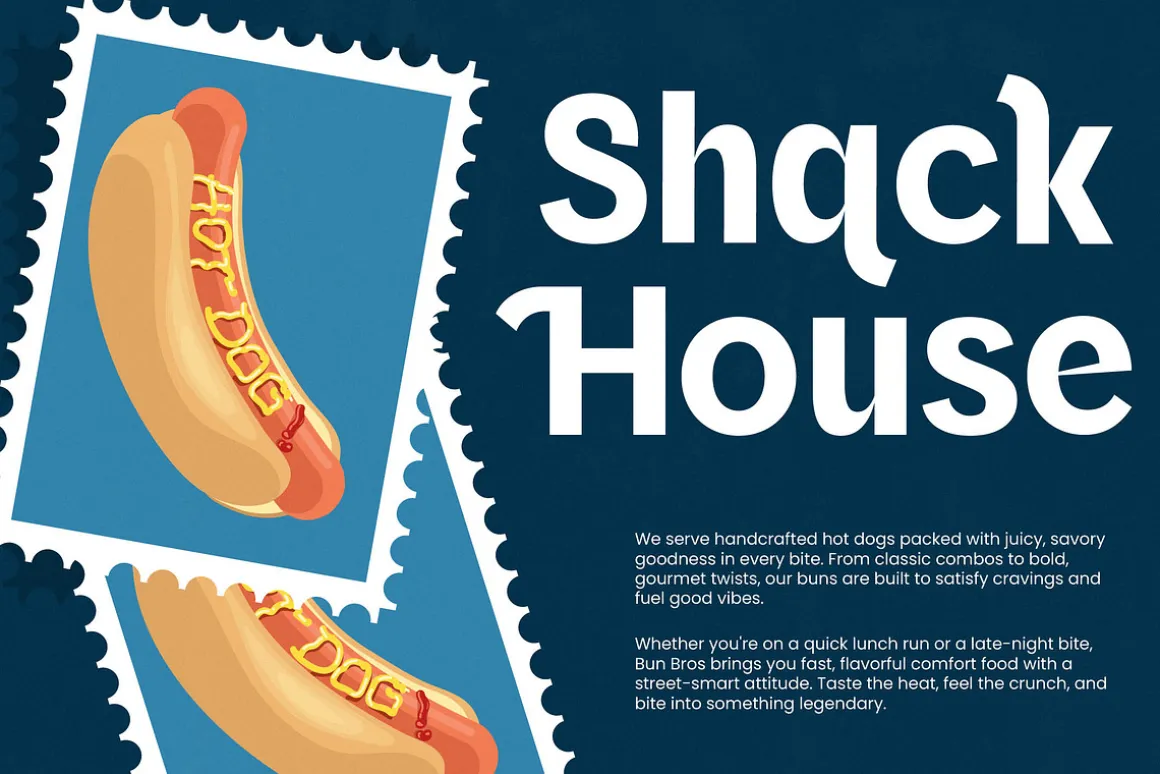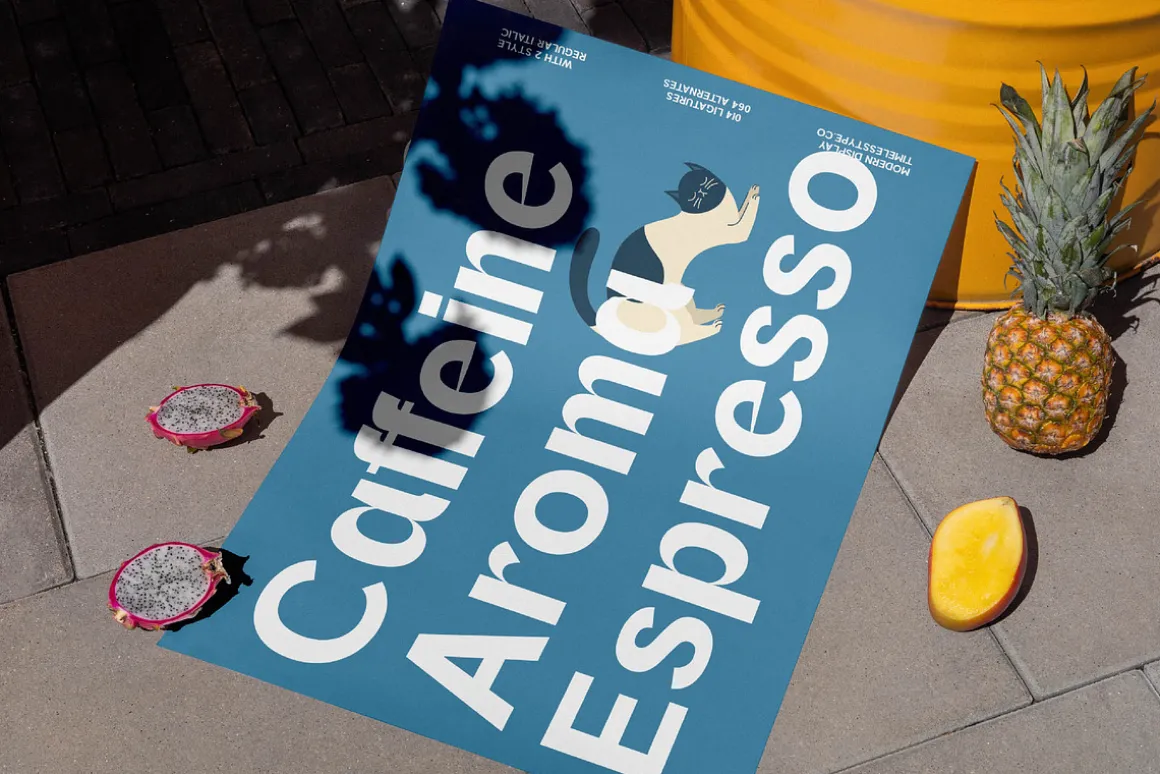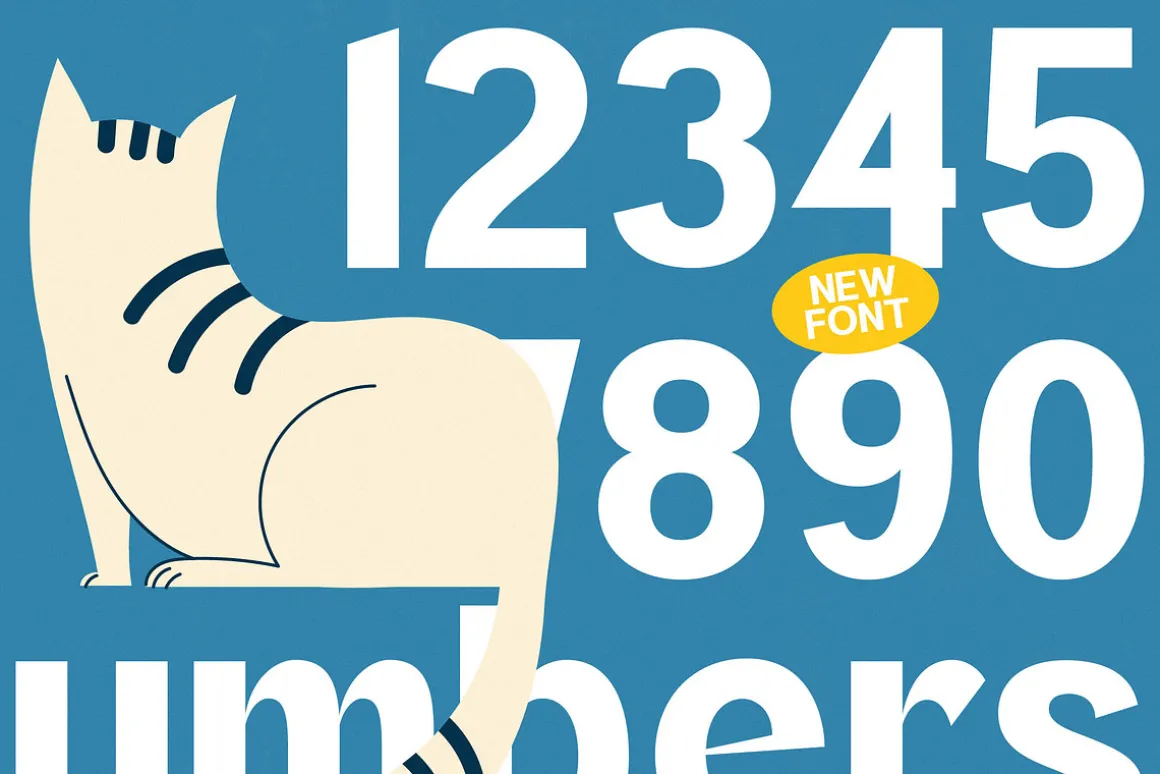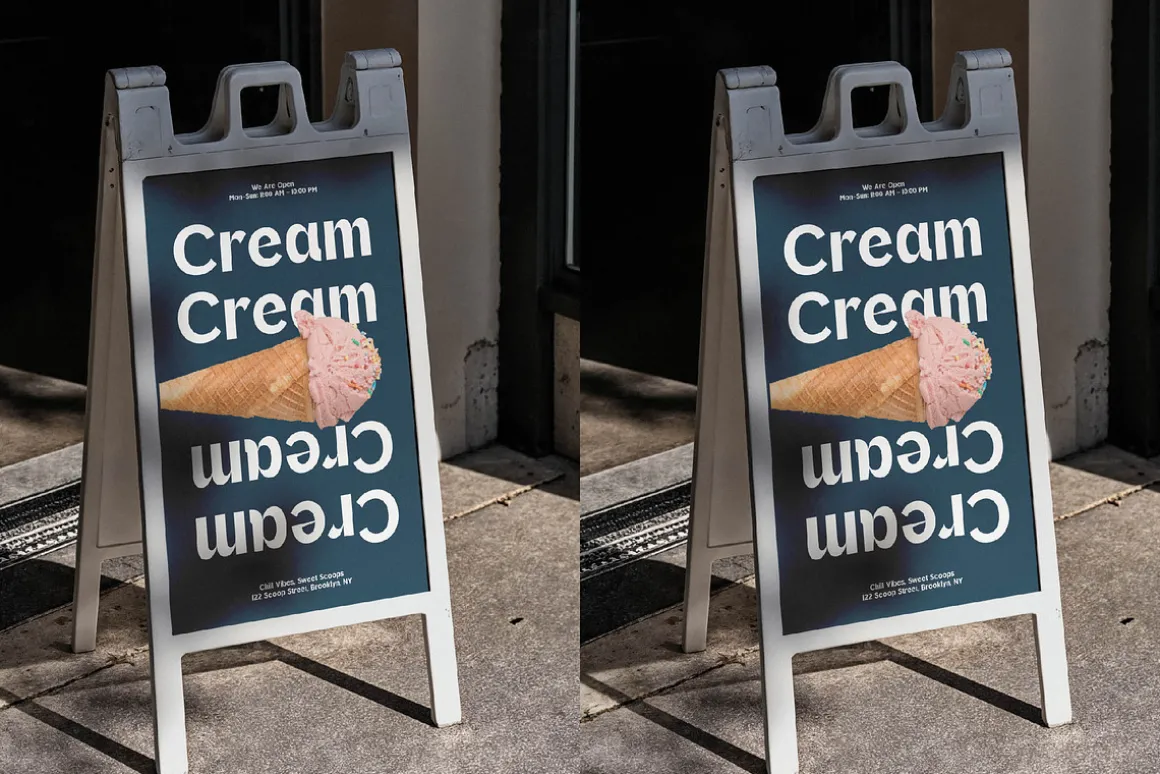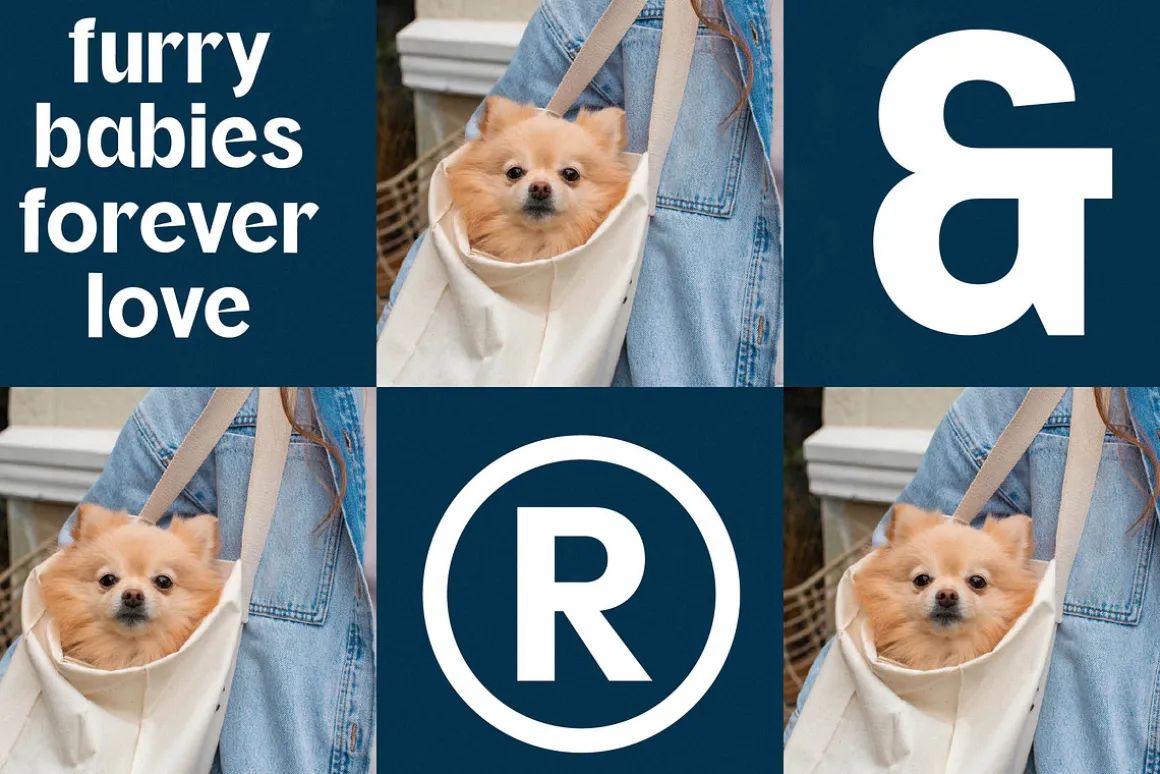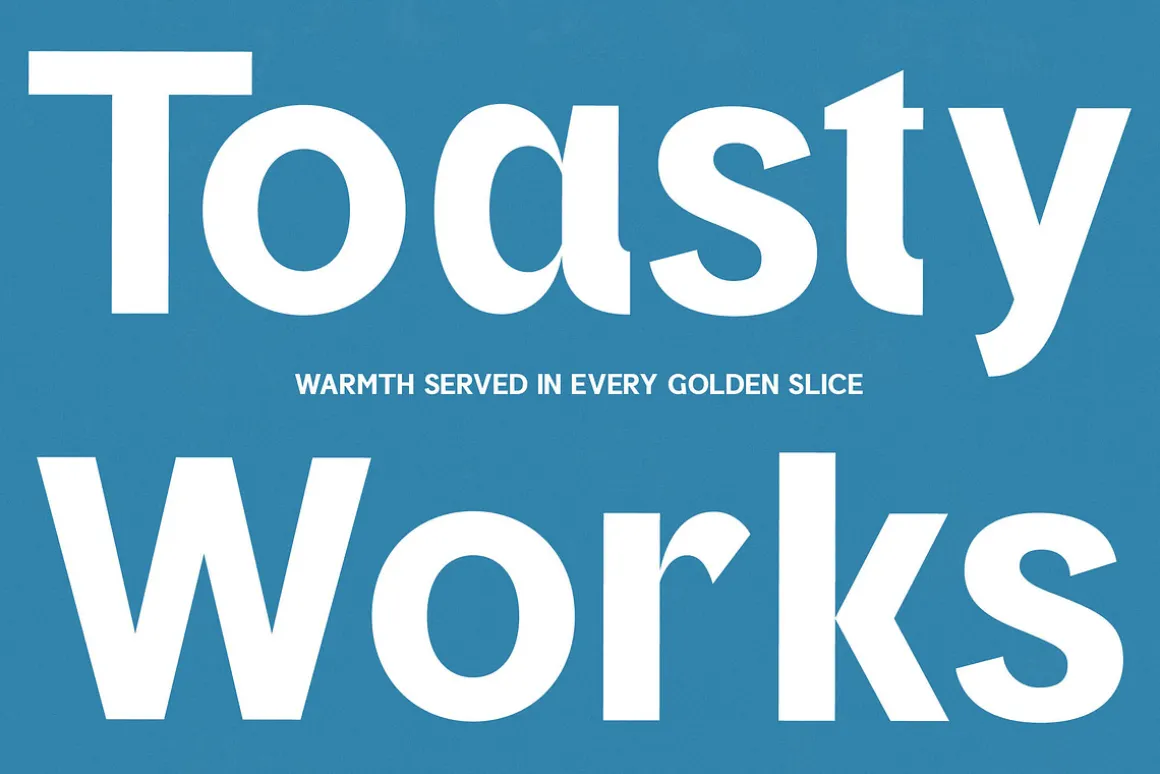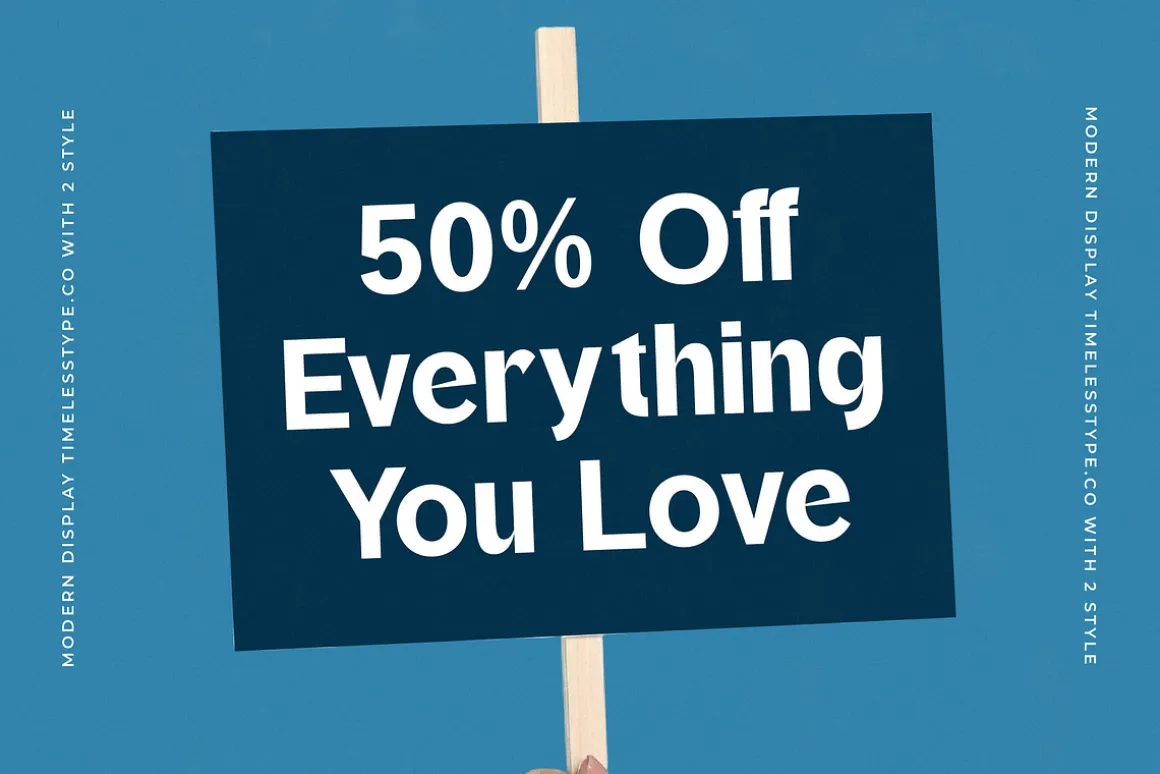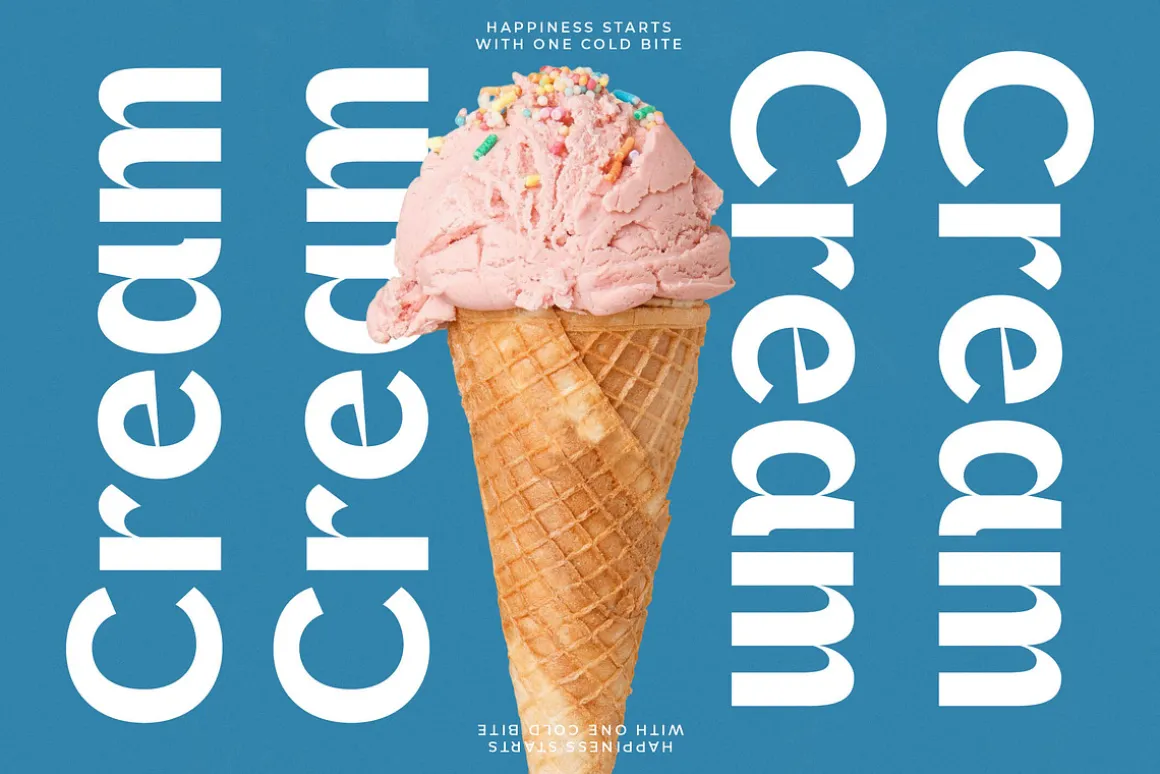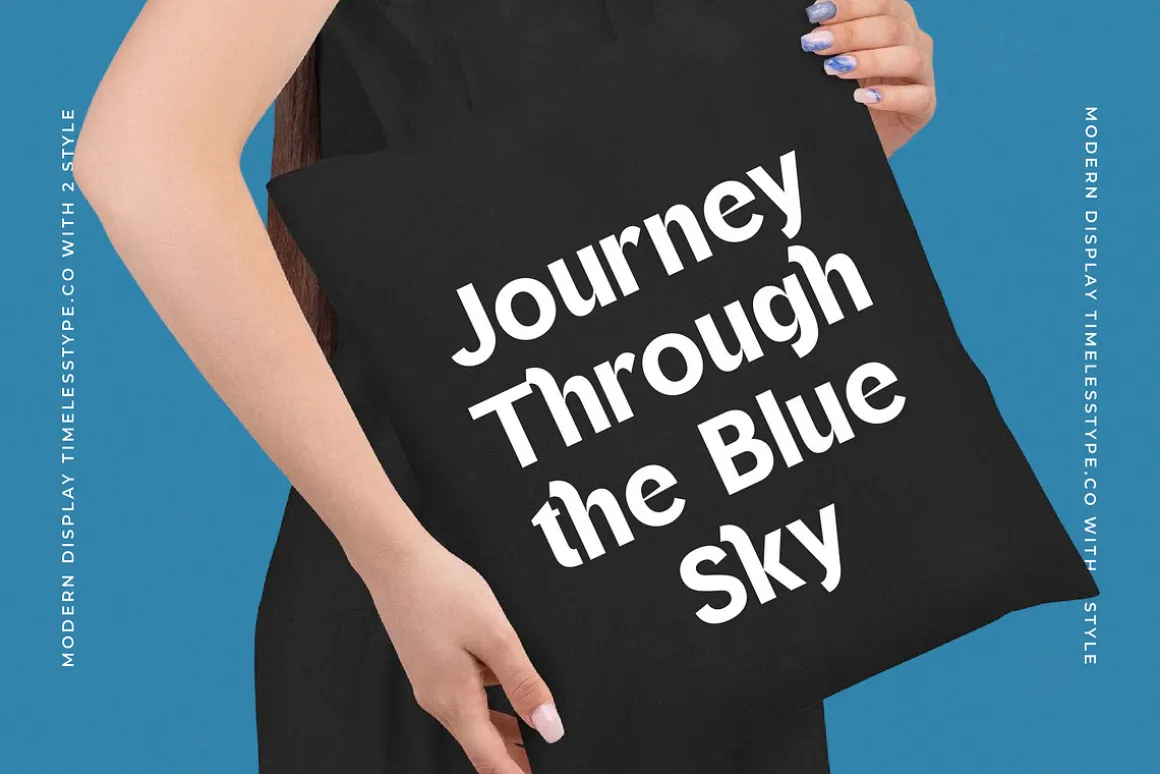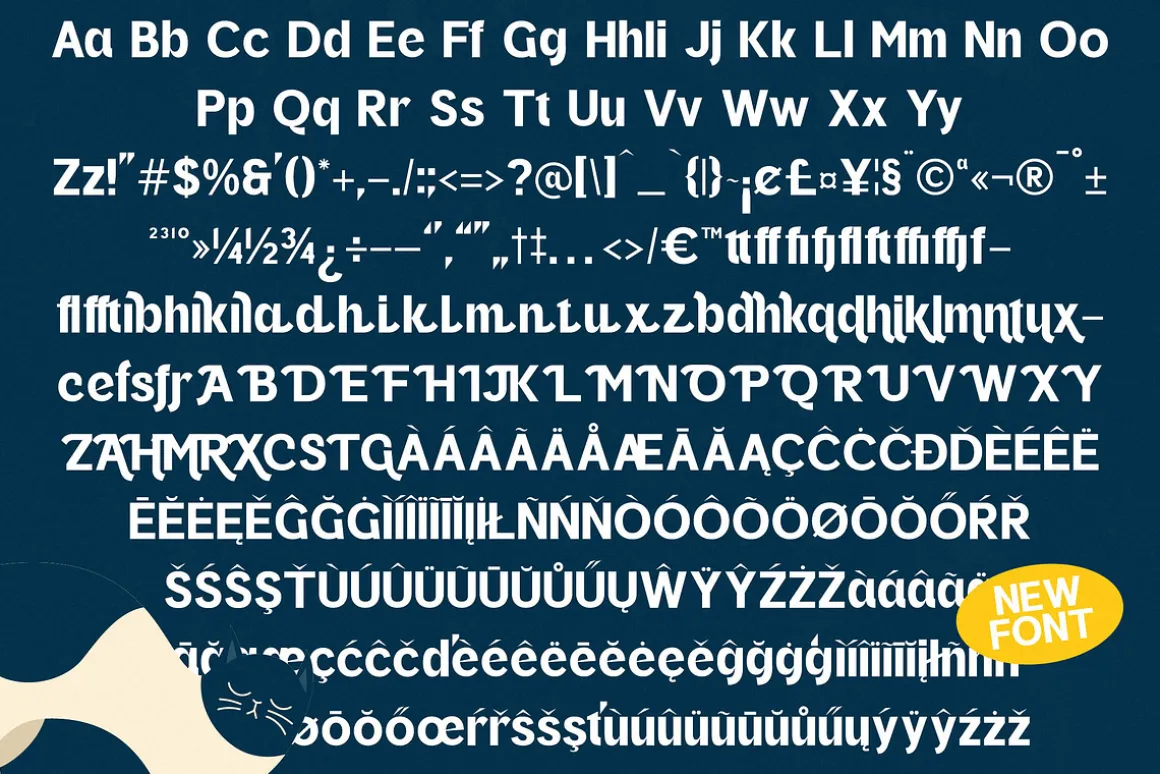
Oritale is a stunning display font that merges sharp precision with a warm, feline-inspired grace. This typeface stands as a testament to balanced design, offering a unique visual rhythm that captures the eye instantly.
Inspired by the fluid movements and sleek silhouettes of cats, the curves of this typeface mirror an organic yet controlled aesthetic. It evokes a sense of timelessness while remaining firmly rooted in contemporary minimalism and high-end artistic expression.
Every character exudes a distinct personality, making it a perfect choice for a modern serif display or a high-impact luxury typography project. Its high-contrast serif elements and clean lines ensure an editorial font quality that delivers an unforgettable branding impact.
Aligning perfectly with the modern serif trend, this typeface is a versatile powerhouse for creators seeking editorial display fonts. It satisfies the demand for character-driven typography that feels both boutique and professional in today’s digital landscape.
From high-end logo design to cohesive branding systems, this font excels in editorial layouts and luxury packaging. It is equally at home in wedding invitations or high-street fashion lookbooks, providing a sophisticated touch to any medium.
This professional package includes a robust set of ligatures and alternates alongside decorative swashes for endless creative possibilities. Full multilingual support and a comprehensive range of international characters ensure your message reaches a global audience with ease.